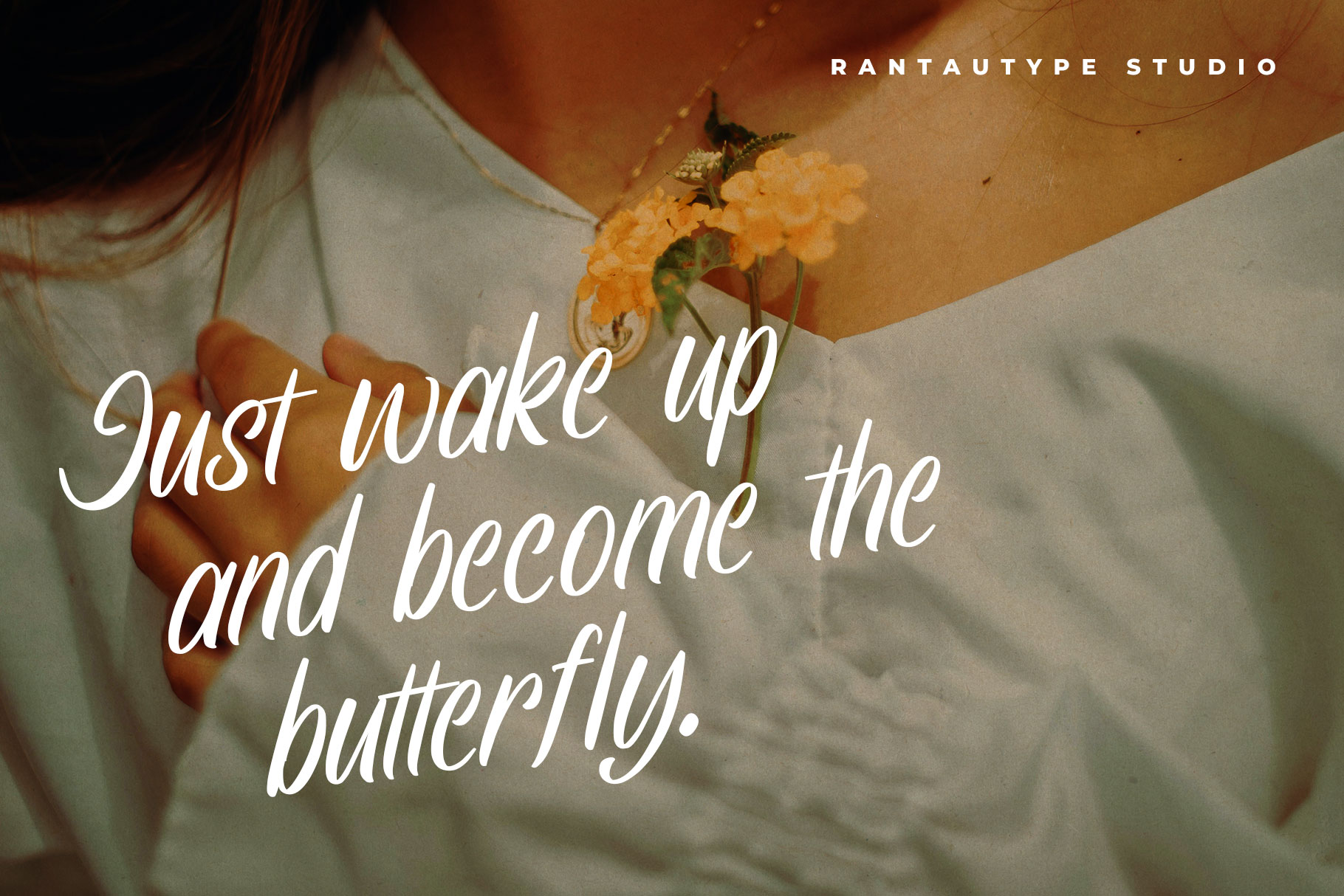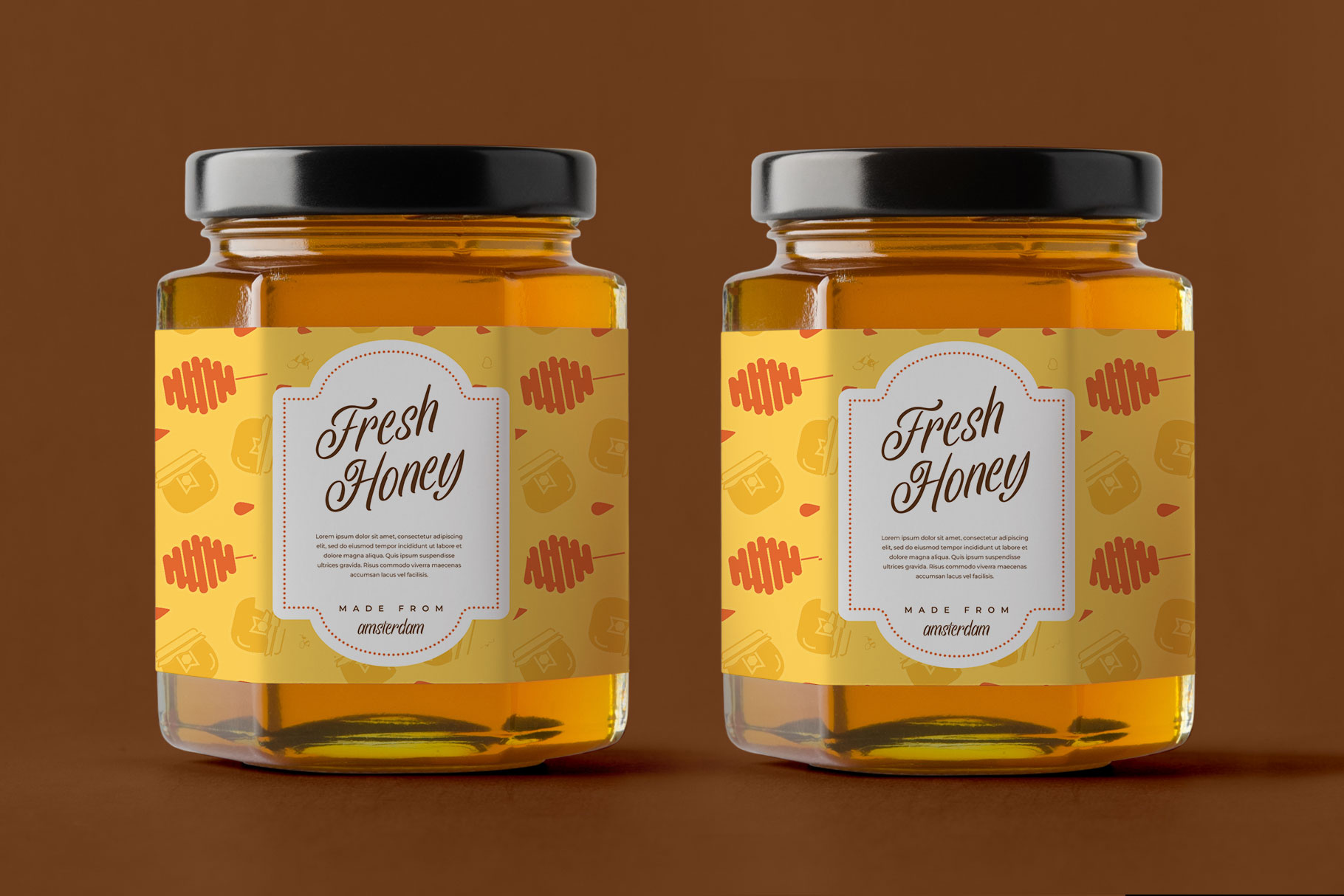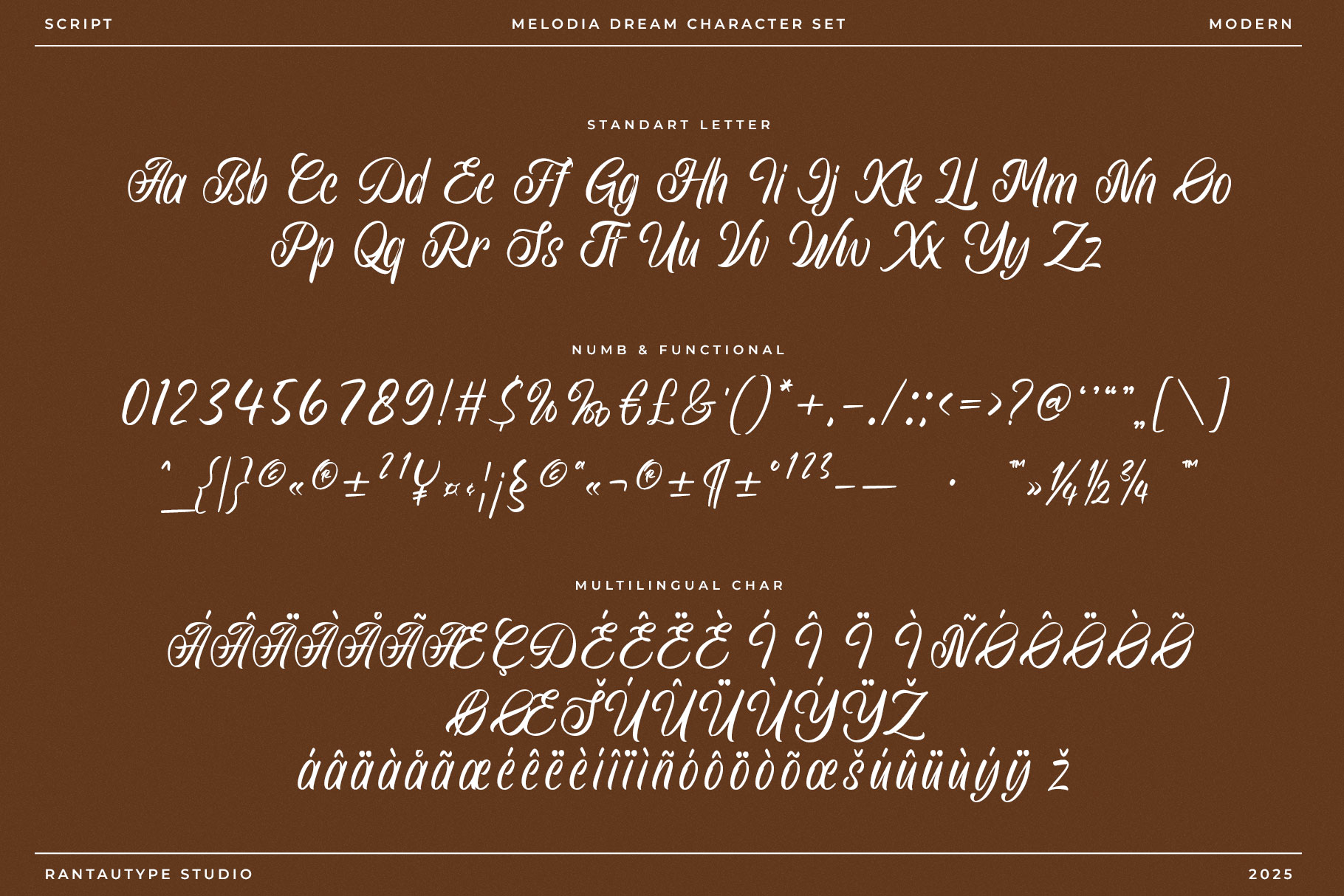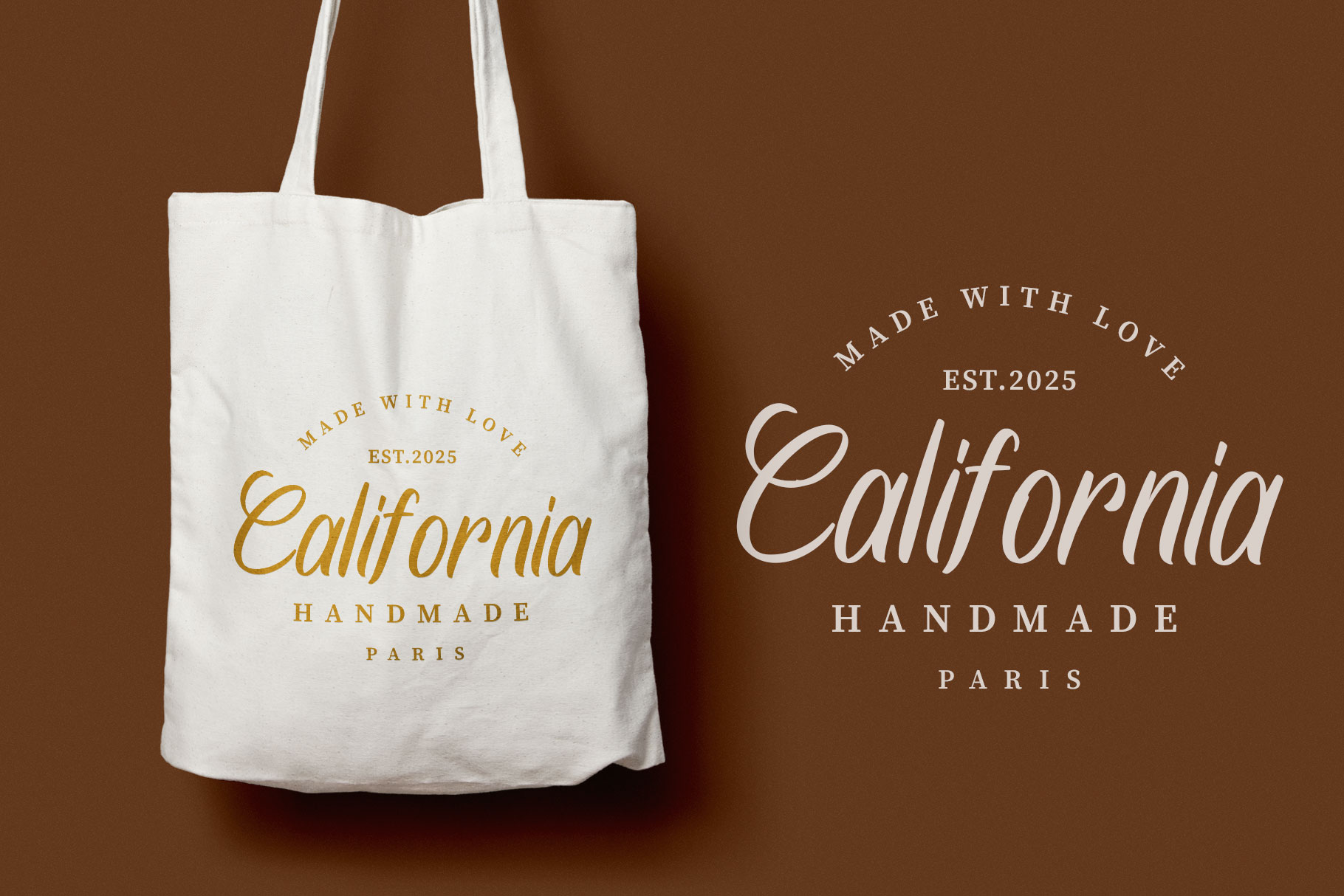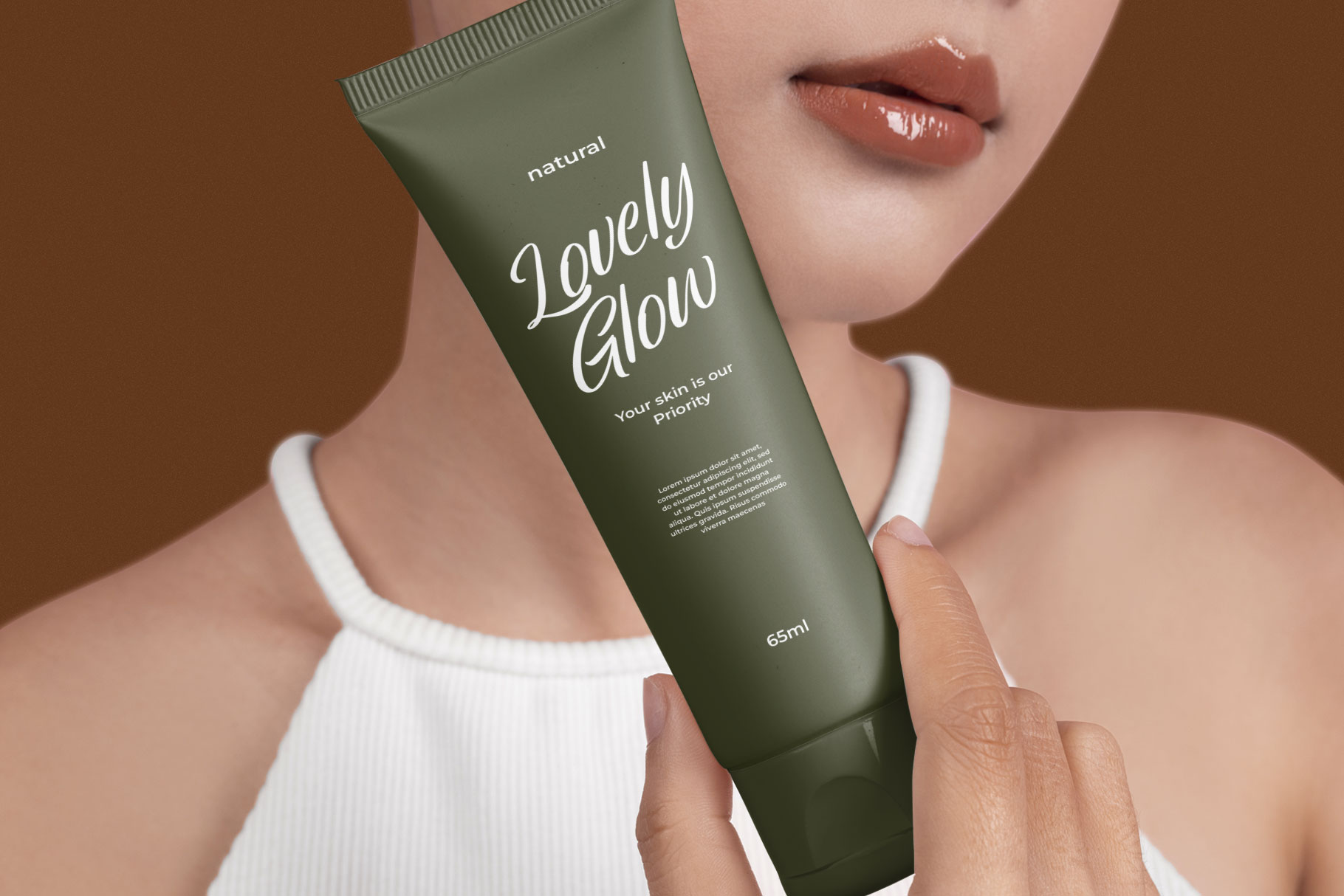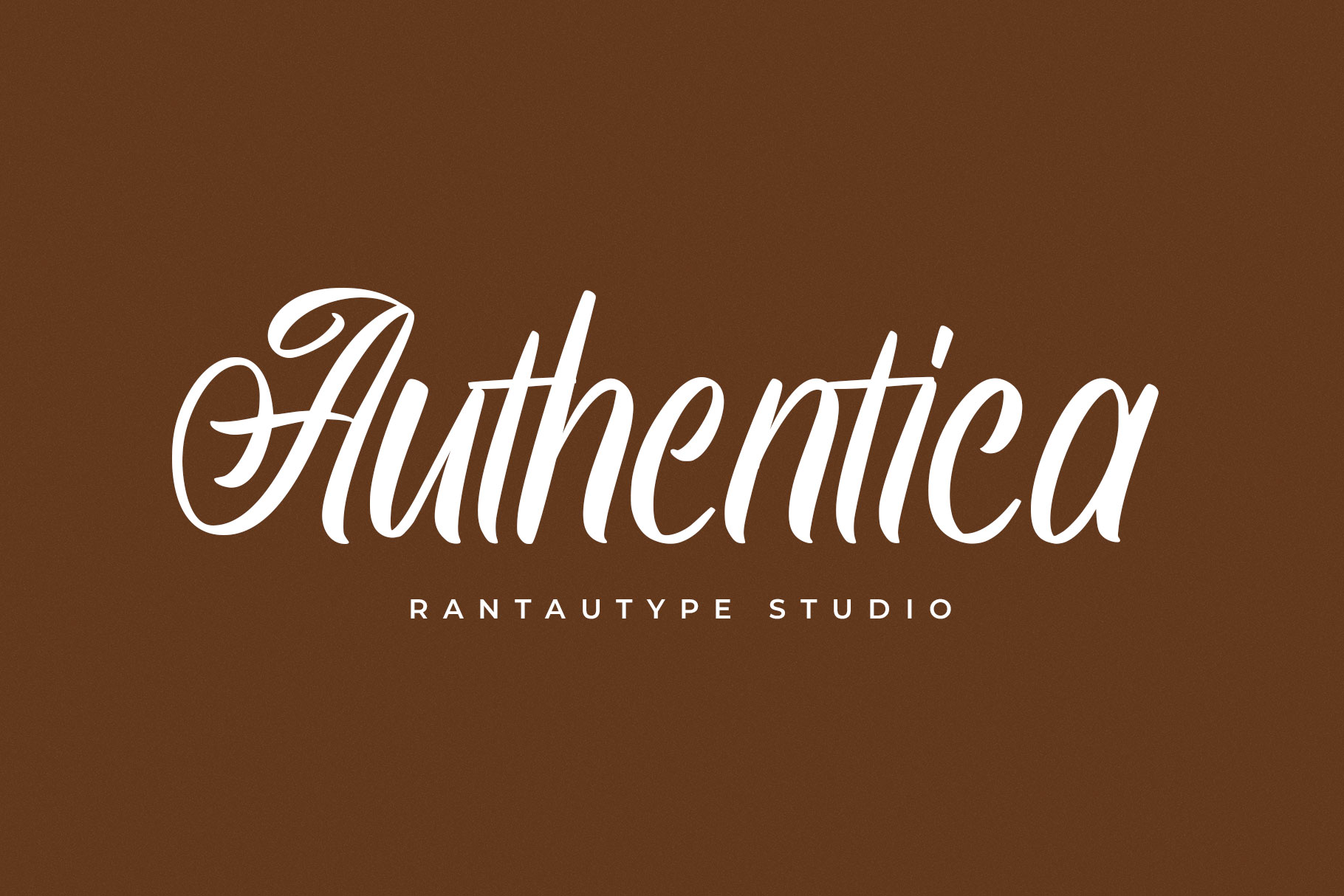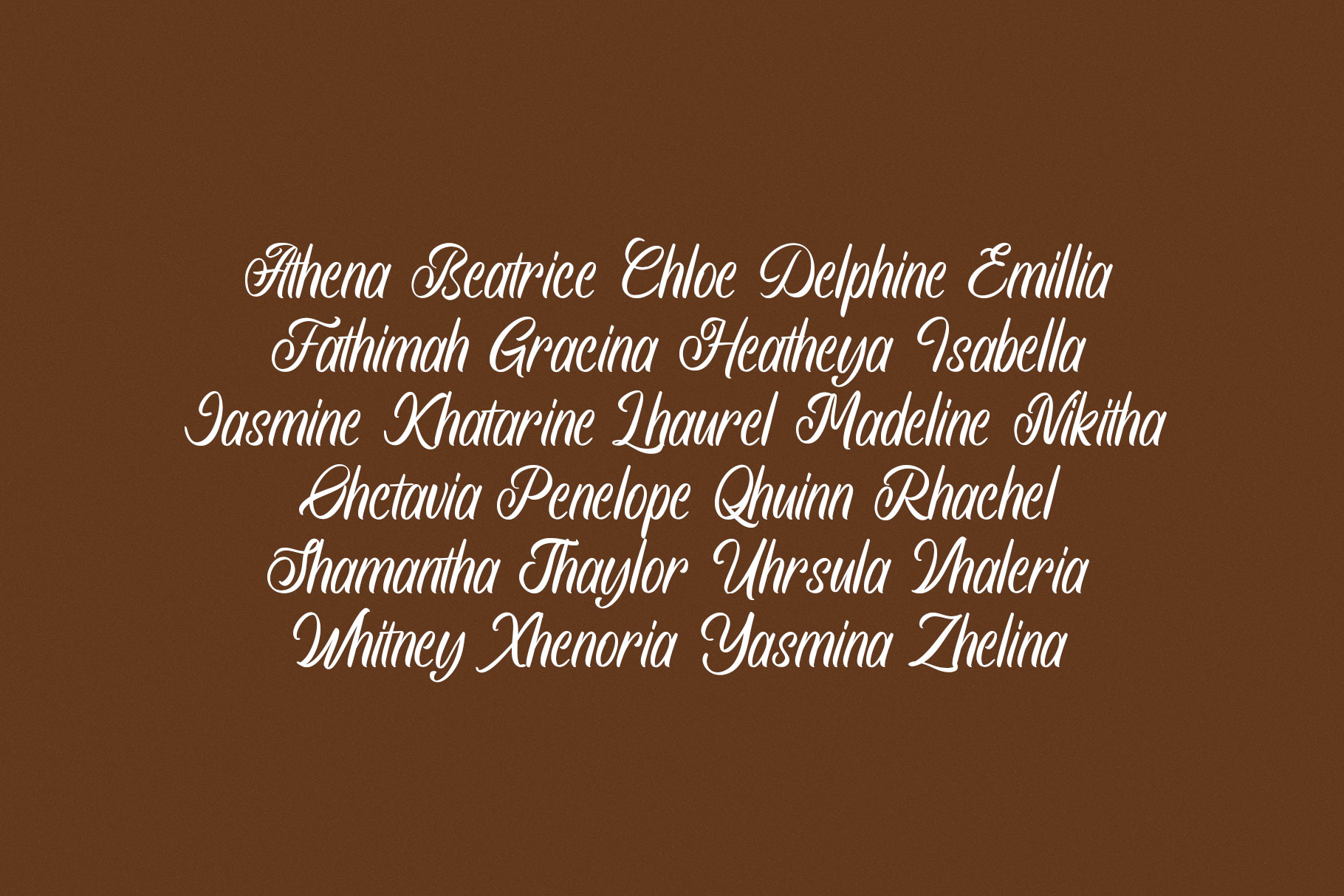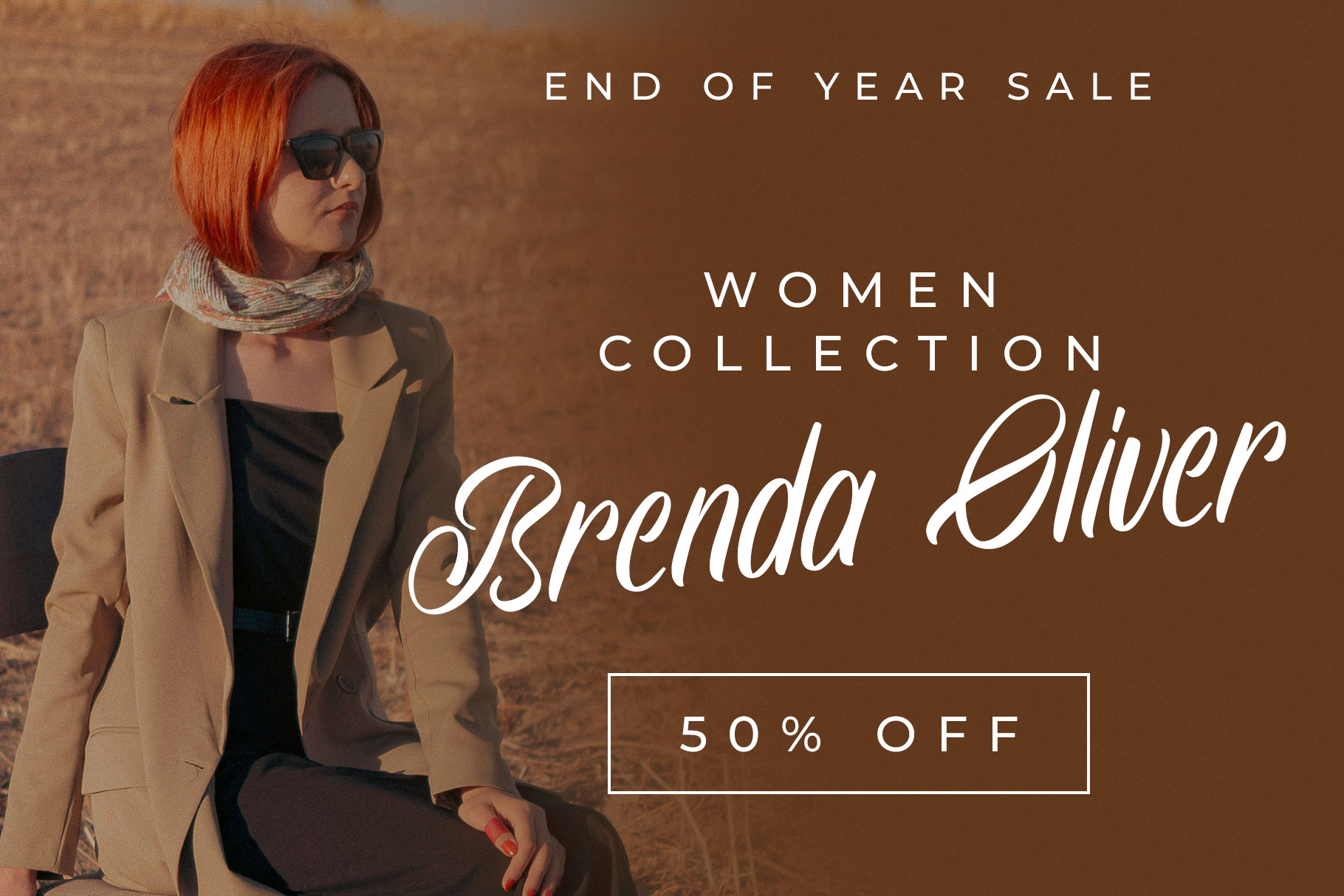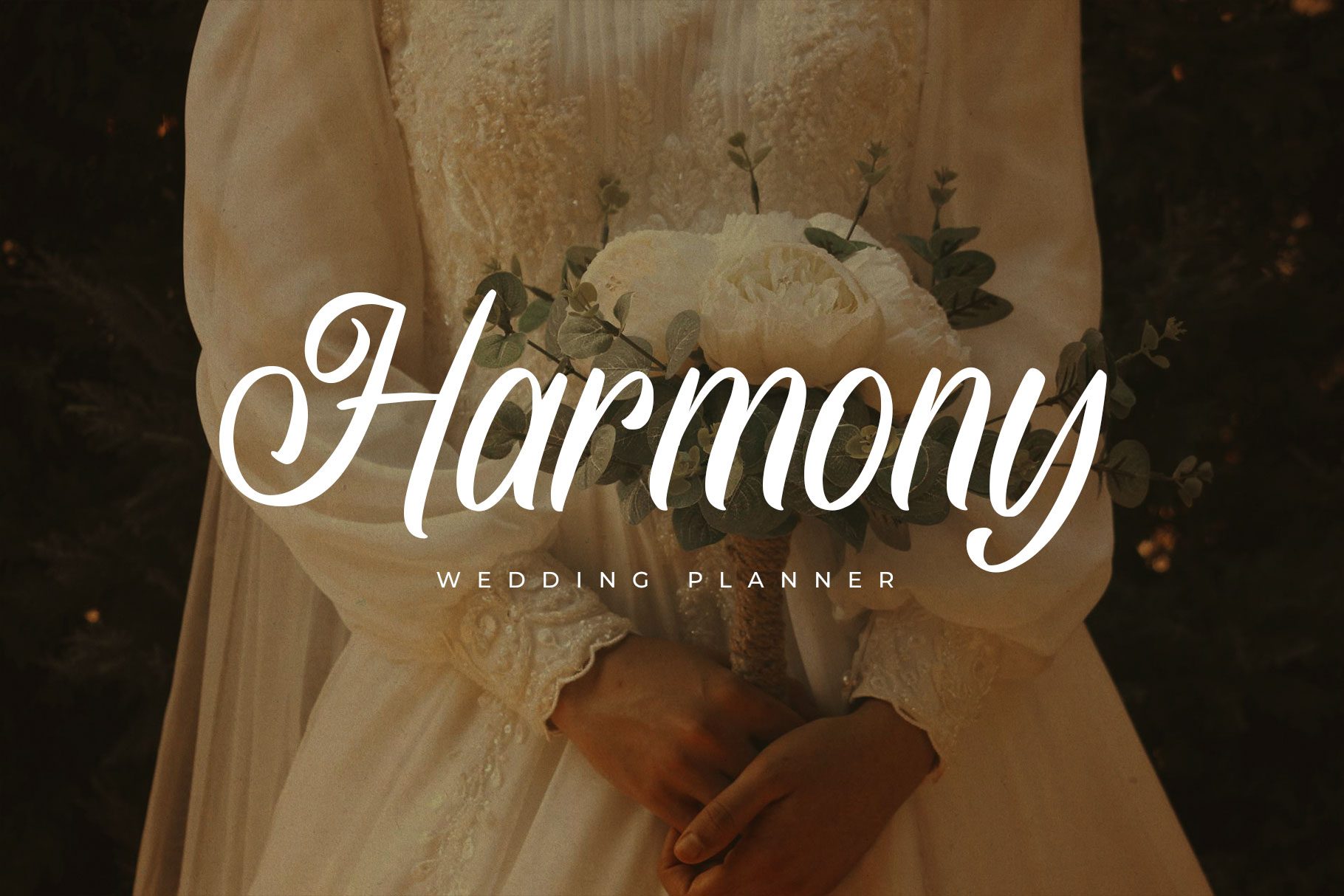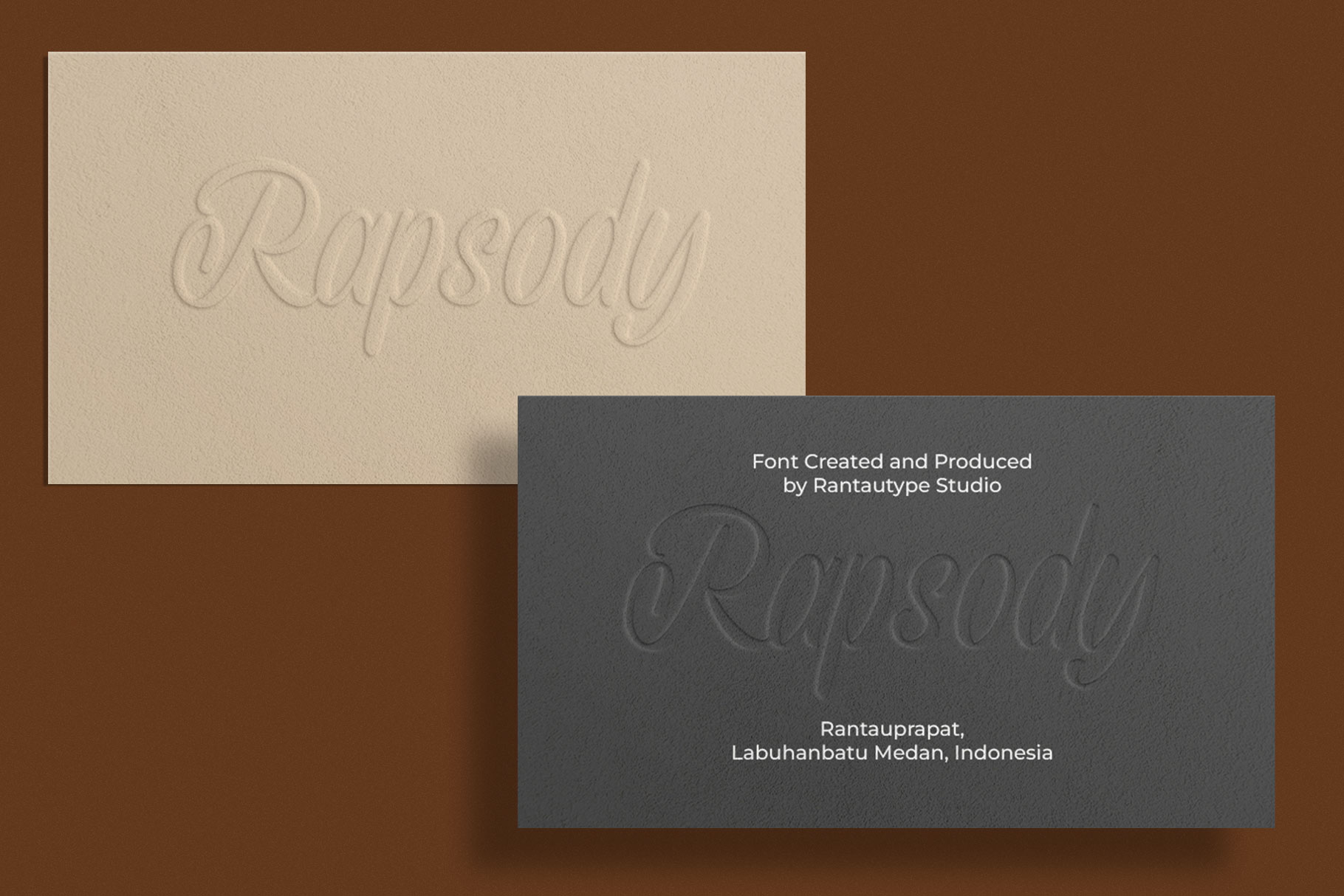
Melodia Dream Script Font
Melodia Dream is script font made by rantautype studio. Melodia Dreamis a perfectly choice for any creative endeavor, creating, modern, lifestyle design such as logotype, title, cover, branding, invitations, wedding designs, display and magazine, social media posts, advertisements, printed quotes, product packaging, corporate brand, product designs, labels, photography, watermarks, special events and any other project with elegant touch.